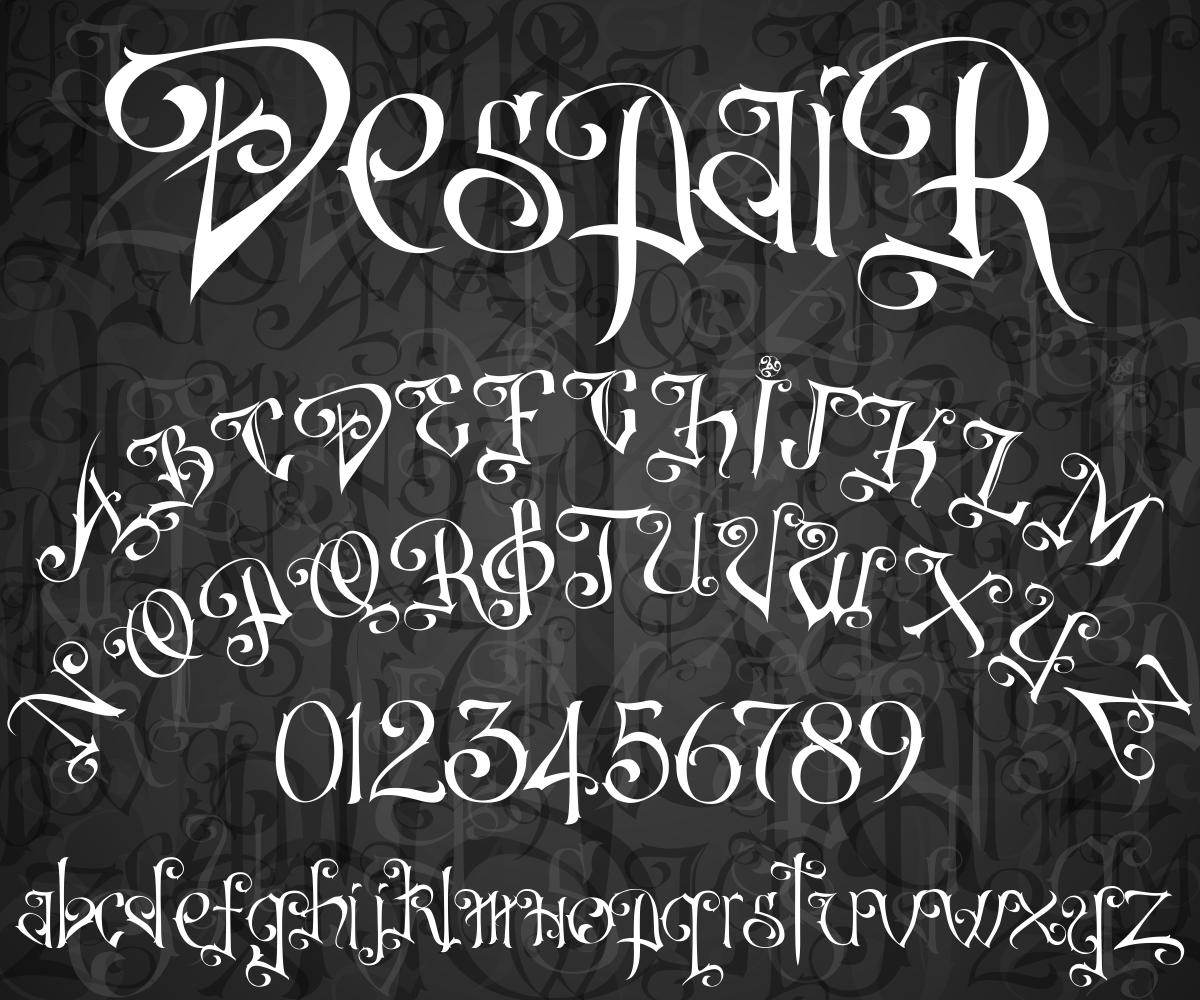
The Birth of DespaiR Font: A Designer’s Journey
Have you ever been in the middle of a creative project, and suddenly, a spark of inspiration strikes? For many designers, this moment of clarity can come from anywhere – a conversation, a sketch, or even a client’s request. My journey with the DespaiR font began on a piece of paper during an extended phone call. The word “despair” scribbled in a mix of gothic and calligraphic styles sparked an idea that would eventually become a full-fledged font.
The Story Behind DespaiR
As I experimented with the initial sketch, I fell in love with the unique combination of gothic and calligraphic elements. I decided to carry on designing a whole set of basic characters and more. The result is DespaiR, a font that embodies a sense of mystery and elegance. With its distinctive strokes and flourishes, DespaiR is perfect for designers, crafters, and creative hobbyists looking to add a touch of sophistication to their projects.
A Personal Review of DespaiR Font
As someone who’s worked with DespaiR extensively, I’m excited to share my honest review of the font.
- ✨ Unique blend of gothic and calligraphic styles
- 💫 Beautifully crafted glyphs and flourishes
- 🎨 Versatile and suitable for various design projects
While DespaiR is an excellent font, there are a few minor limitations to consider:
- 🤔 Limited support for non-English characters
- ⚠️ Some users may find the font too ornate for certain projects
- Experiment with OpenType features, such as glyphs and stylistic alternates, to add visual interest to your design.
Q: What inspired the creation of DespaiR font?
A: The DespaiR font was inspired by a scribbled sketch of the word “despair” during a phone call, which combined gothic and calligraphic elements.
Q: What are the best uses for DespaiR font?
A: DespaiR font is suitable for various design projects, such as branding, packaging, and editorial design, where a touch of elegance and sophistication is desired.
Q: Is DespaiR font suitable for body text?
A: While DespaiR font is highly legible, it may be better suited for headings or titles due to its ornate nature.